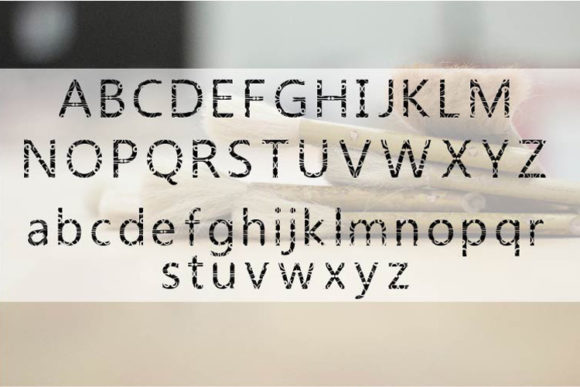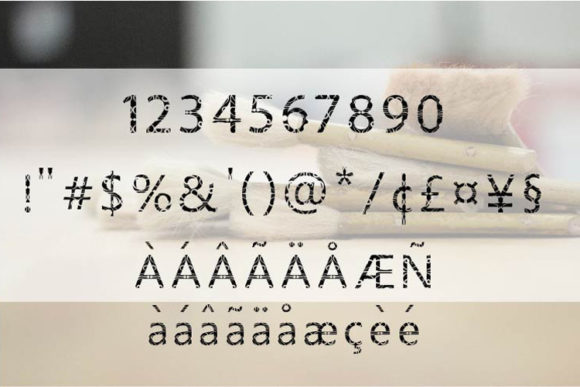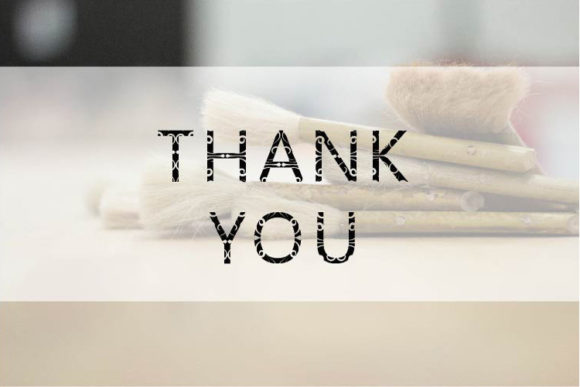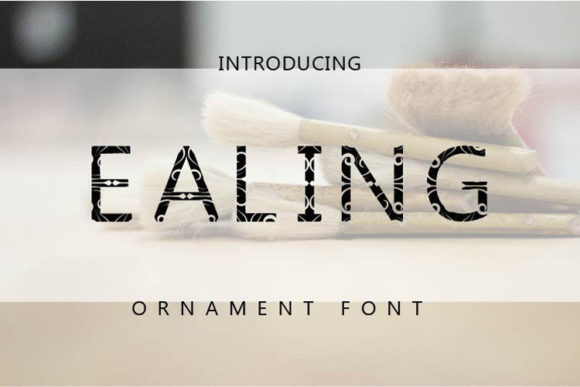
Ealing Font: Elevate Your Designs with this Highly Detailed Decorative Font
Are you tired of using the same old fonts in your designs? Look no further than Ealing Font, a cool and highly detailed decorative font that’s sure to take your creations to the next level. Whether you’re a designer, crafter, or simply someone who loves to dabble in typography, Ealing Font is an incredible asset to have in your font library.
What Makes Ealing Font So Special?
Ealing Font is a unique and versatile font that’s perfect for a wide range of design projects. Its highly detailed and decorative style makes it stand out from more traditional fonts, giving your designs a touch of elegance and sophistication. Whether you’re working on a logo, brochure, or social media graphics, Ealing Font is sure to make your designs pop.
One of the best things about Ealing Font is its incredible versatility. It can be used for a wide range of topics and themes, from formal and professional designs to more playful and creative projects. Whether you’re looking to create a bold and eye-catching design or something more subtle and understated, Ealing Font has the potential to elevate any creation.
Key Features of Ealing Font
- Highly detailed and decorative style: Ealing Font features intricate details and ornate flourishes that give it a unique and eye-catching style.
- Versatile and adaptable: Whether you’re working on a formal or informal design project, Ealing Font is sure to fit the bill.
- Wide range of uses: From logos and branding to social media graphics and more, Ealing Font is perfect for a wide range of design projects.
- Easy to read and understand: Despite its decorative style, Ealing Font is still easy to read and understand, making it perfect for designs where clarity is key.
How to Use Ealing Font in Your Designs
So, how can you use Ealing Font in your designs? The possibilities are endless! Here are a few ideas to get you started:
- Logos and branding: Use Ealing Font to create a unique and memorable logo that sets your brand apart.
- Social media graphics: Add a touch of elegance and sophistication to your social media graphics with Ealing Font.
- Brochures and flyers: Use Ealing Font to create eye-catching and effective marketing materials.
- Invitations and events: Add a touch of class and sophistication to your invitations and event materials with Ealing Font.
Tips for Getting the Most Out of Ealing Font
To get the most out of Ealing Font, here are a few tips to keep in mind:
- Experiment with different sizes and colors: Ealing Font looks great in a wide range of sizes and colors, so don’t be afraid to experiment and find the perfect combination for your design.
- Pair it with other fonts: Ealing Font pairs well with a wide range of other fonts, so try combining it with other fonts to create a unique and eye-catching design.
- Use it sparingly: While Ealing Font is a beautiful font, it can be overwhelming if used too much. Use it sparingly to create a bold and eye-catching design.
In conclusion, Ealing Font is a highly detailed and decorative font that’s sure to elevate any design project. Its versatility, adaptability, and ease of use make it a must-have font for designers and crafters. Whether you’re looking to create a bold and eye-catching design or something more subtle and understated, Ealing Font is the perfect choice. So why wait? Download Ealing Font today and start taking your designs to the next level!